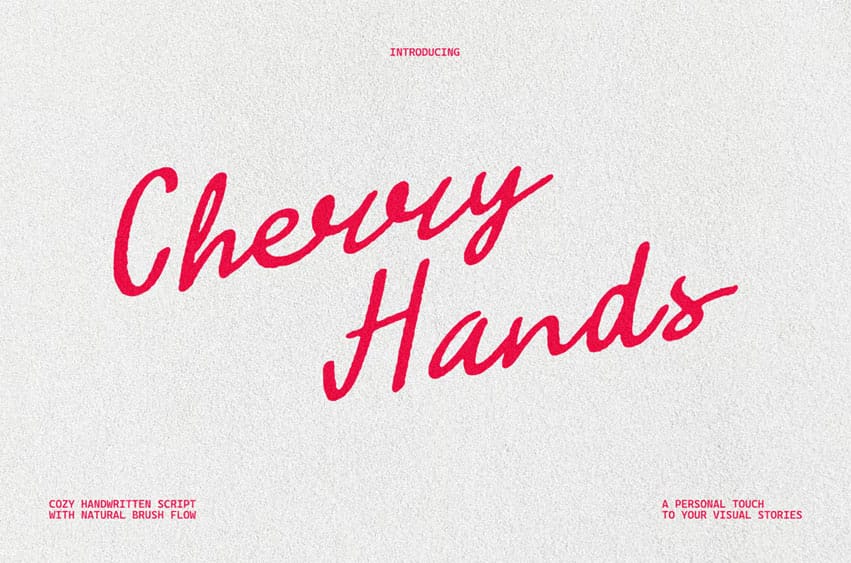
Cherry Hands Font is a natural handwritten script that brings a personal touch to your visual stories. Each stroke is crafted to feel organic and human, making it perfect for designers who love authentic textures and emotional depth in their work.
Cherry Hands captures the emotion of human handwriting while staying clean and readable, suitable for both modern and nostalgic aesthetics.